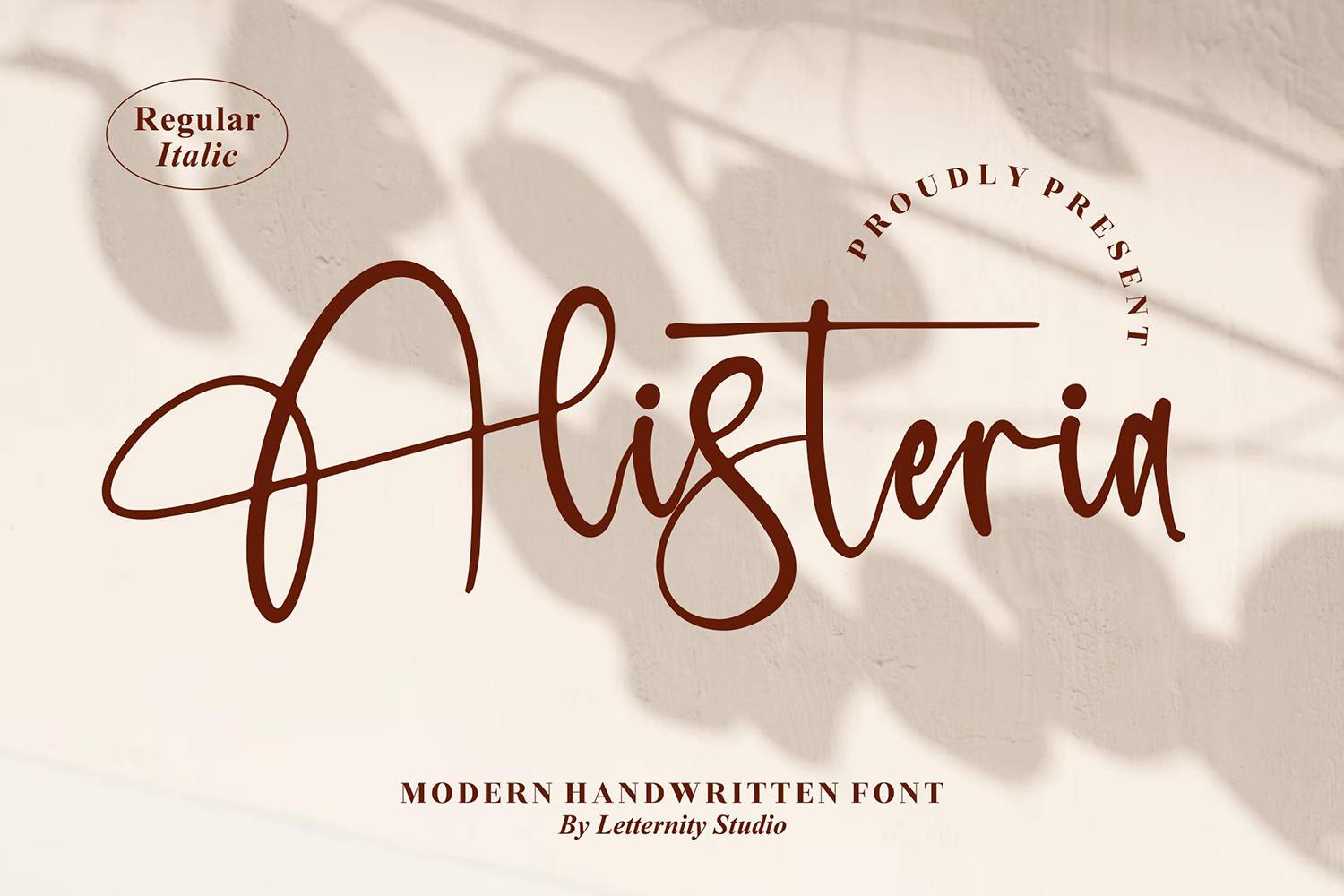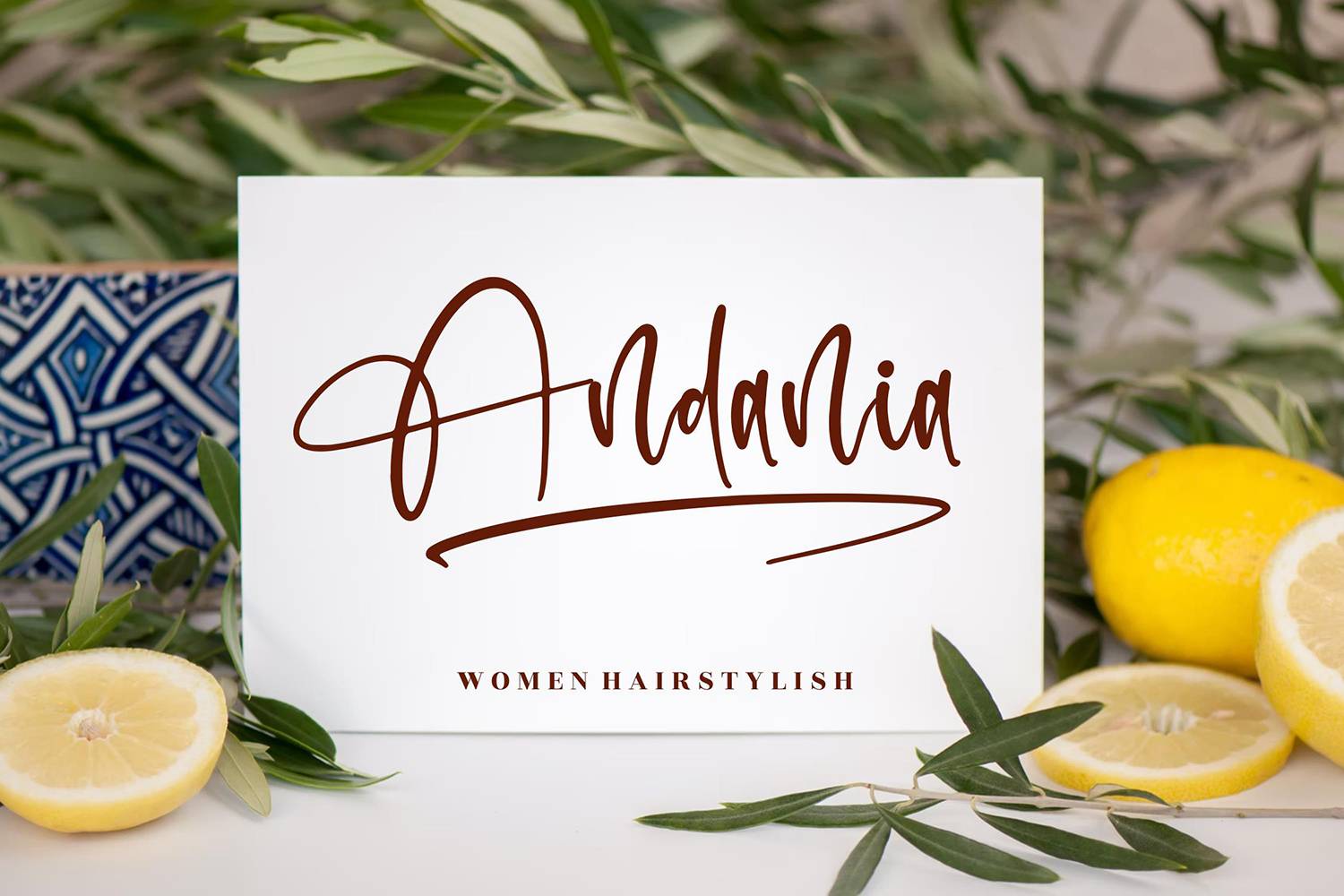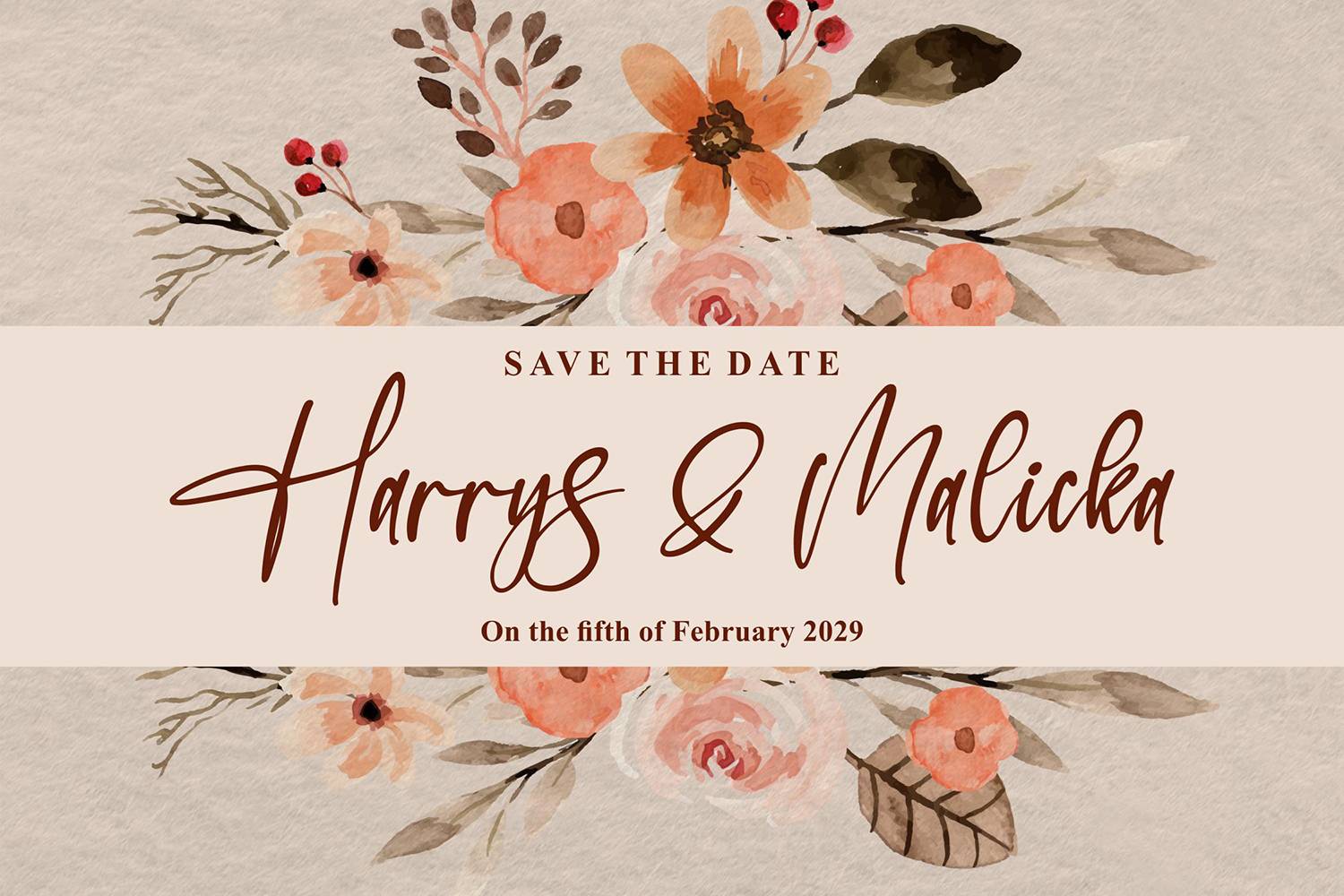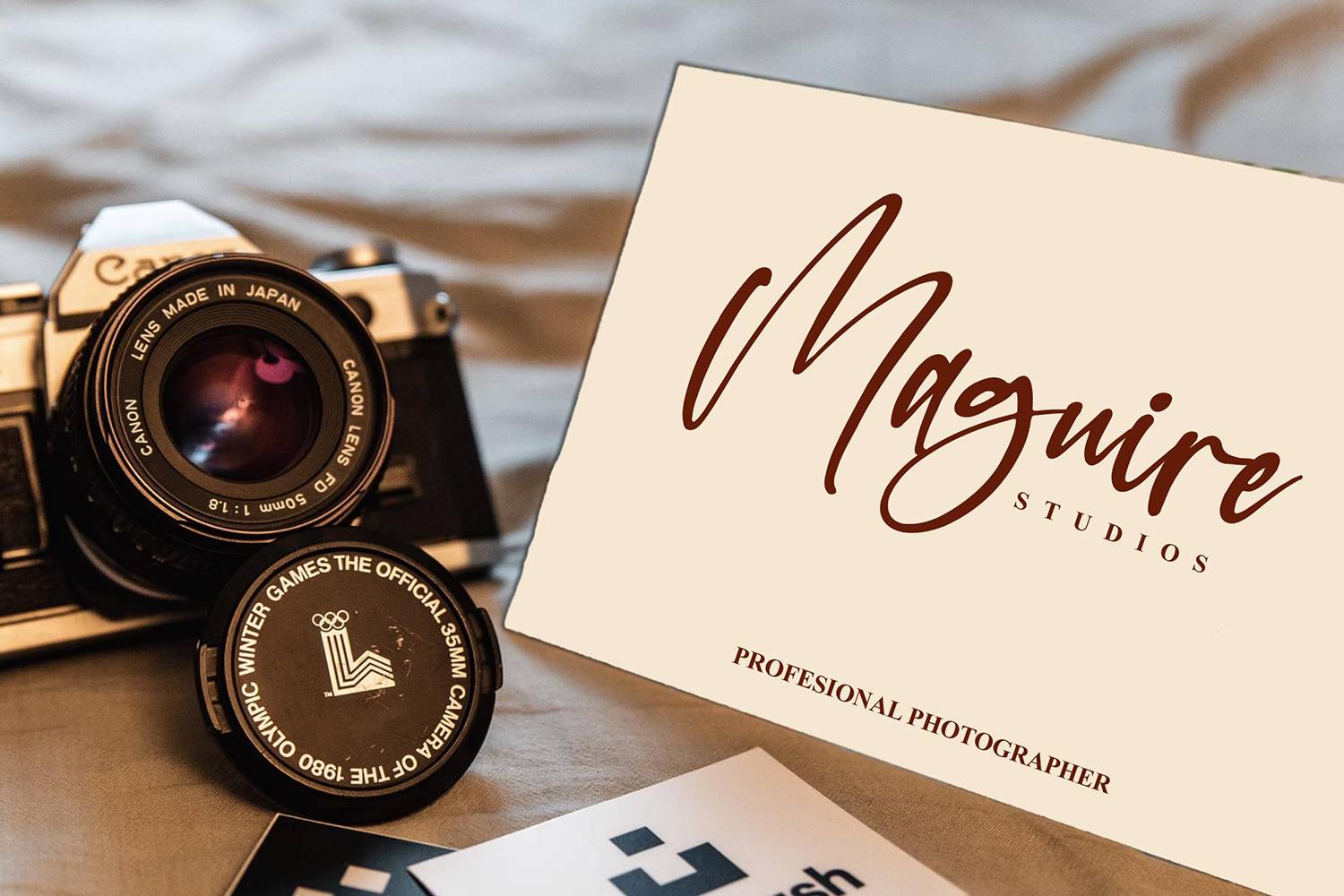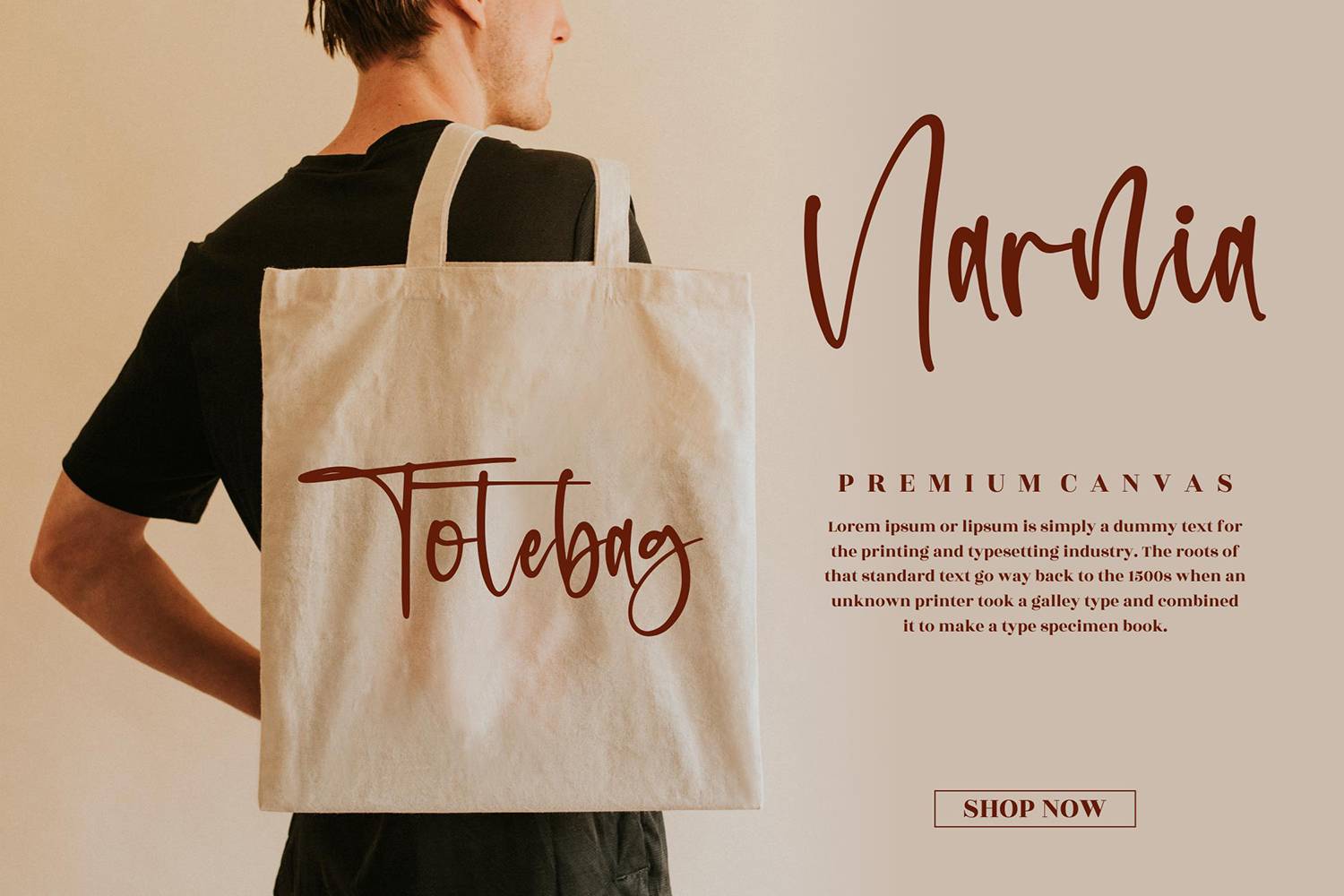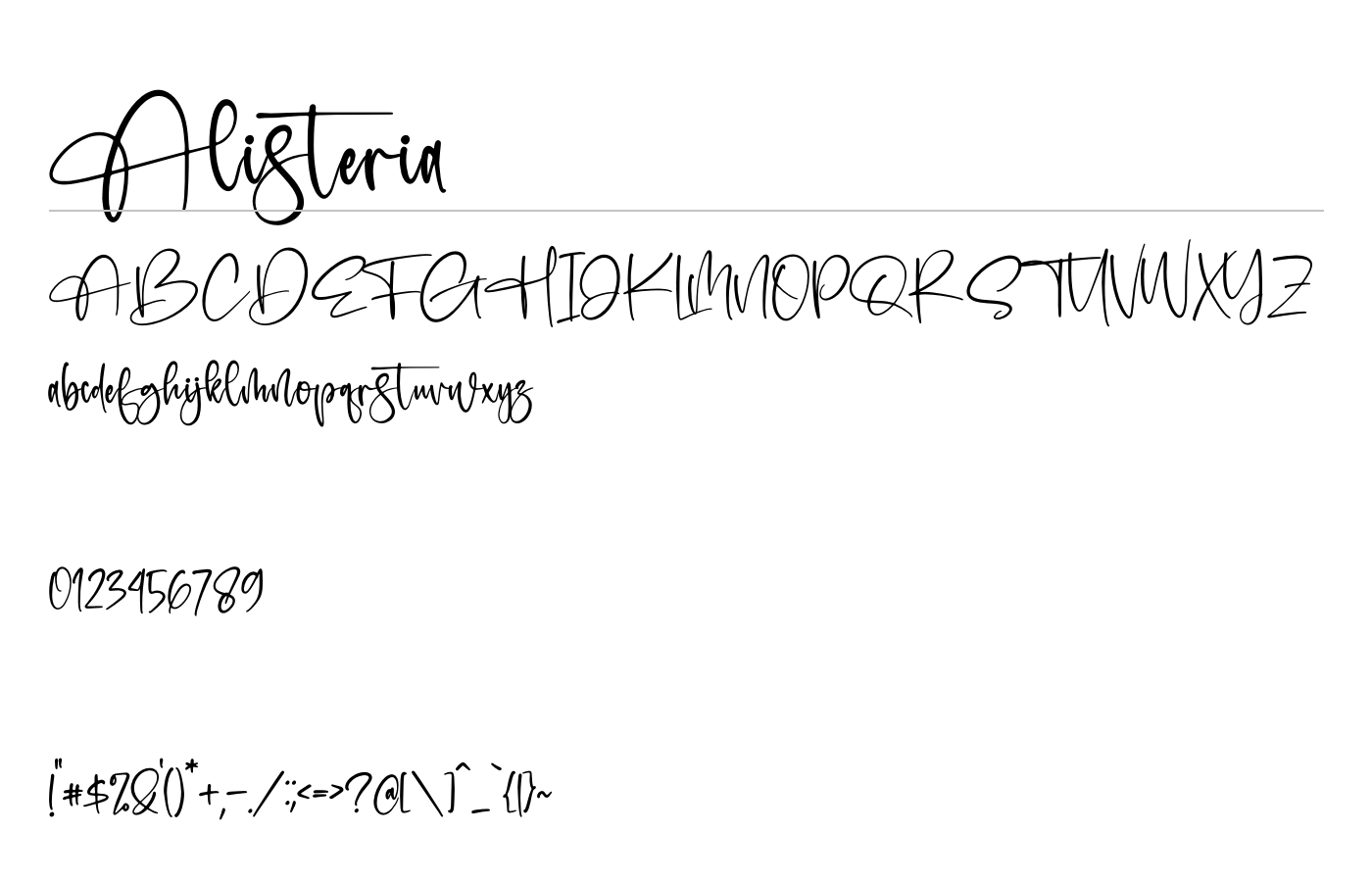
Alisteria is a playful, modern script font characterized by its thin, flowing strokes and whimsical, handwritten feel. Its tall x-height and lively letterforms with unique loops and curls make it ideal for creative branding, invitations, and stylish headlines. This font adds a personal and elegant touch while maintaining a casual, approachable vibe perfect for fashion, beauty, and lifestyle designs.
Alisteria Font
About Alisteria Font